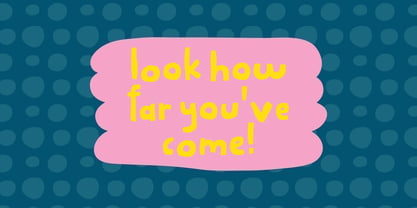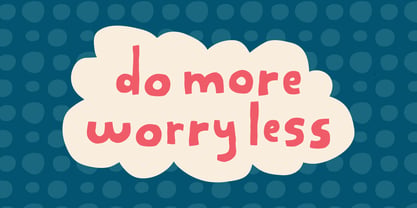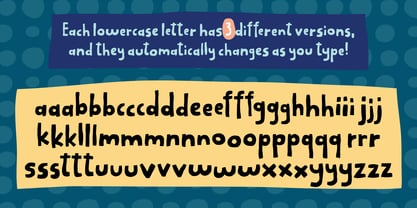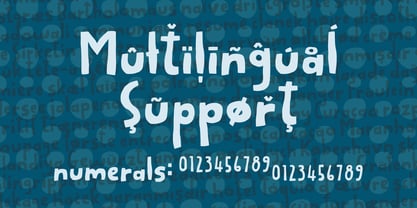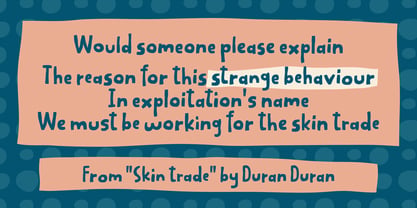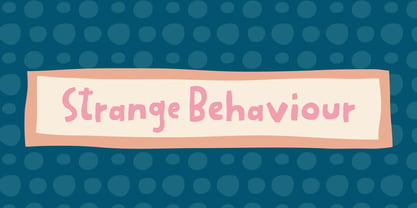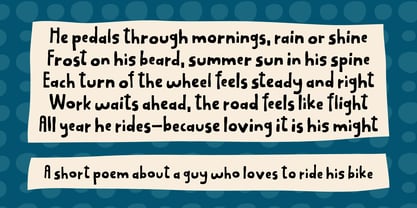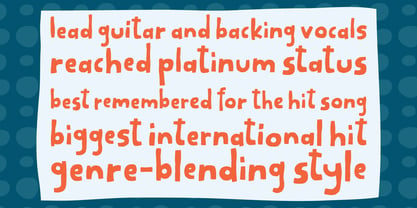
Strange Behaviour
by Bogstav
The Strange Behaviour Font Family was designed by Jakob Fischer and published by Bogstav. Strange Behaviour contains 2 styles and family package options. More about this family
Say hello to my clumsy, irregular, off-grid, organic and slightly imperfect font “Strange Behaviour” The curves and shapes are bold and playful with a casual rhythm and informal, whimsical cheekiness. Use “Strange Behaviour” for anything that needs a personal and wild touch. I have added 3 versions of each lowercase letter, and they automatically changes as you type - just like magic!